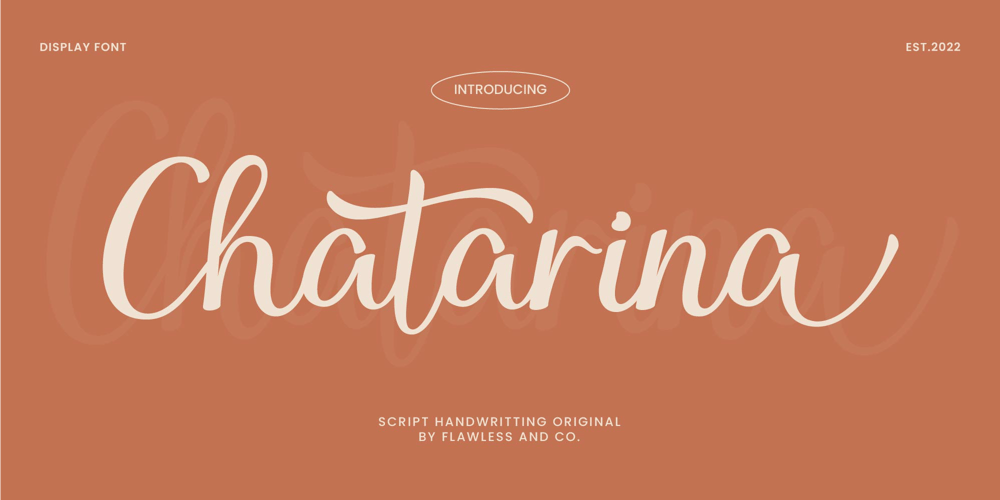
Chatarina Font Family was designed by Achmad Yani and published by Flawlessandco. Chatarina contains 1 styles and family package options. Chatarina is a Sweet Script Font with some font swashes that can add a touch of sweetness to each letter.An Original typeface that suitable for any graphic designs such as branding materials, t-shirt, print, business cards, logo, poster, t-shirt, photography, quotes .etcThis font support for some multilingual. Modern Script that contains uppercase A-Z and lowercase a-z, alternate character, numbers 0-9, and some punctuation.If you need help, just write me! Thanks so much for checking out my shop!